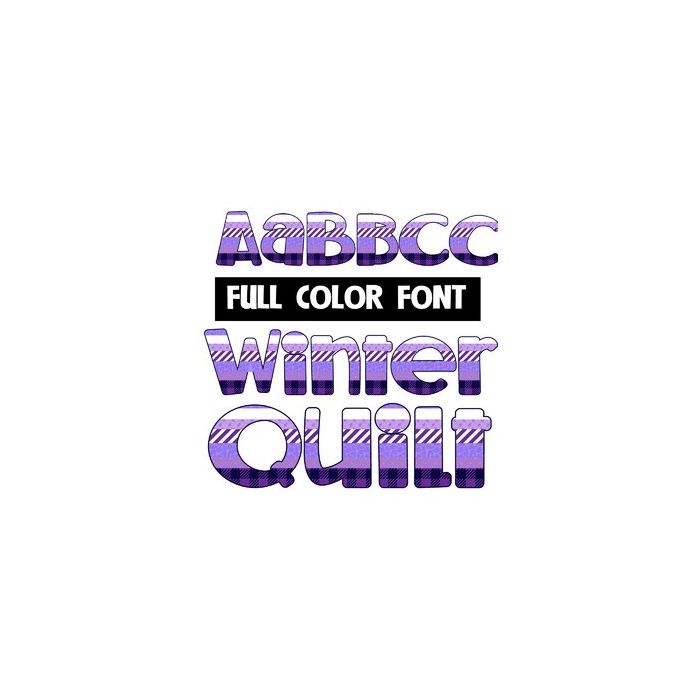
This full-color font features several patterns stitched together in purple prints. This font works best for titles, displays, posters and more. Please note color fonts will show as black in non compatible programs. This font type is compatible with Silhouette Studio